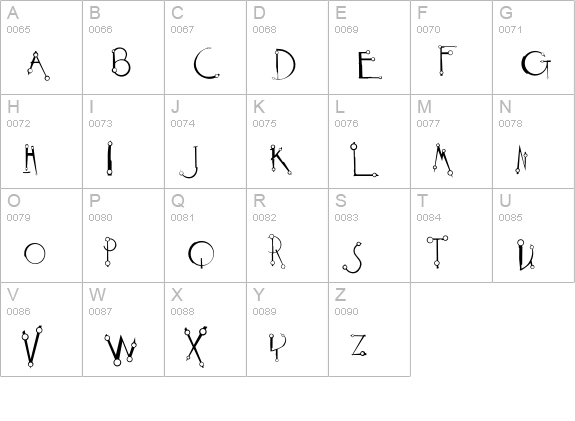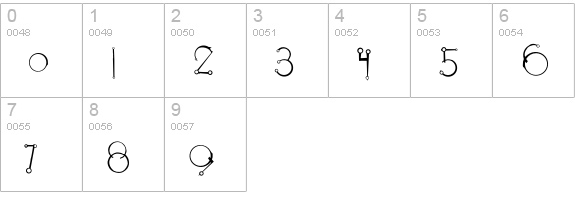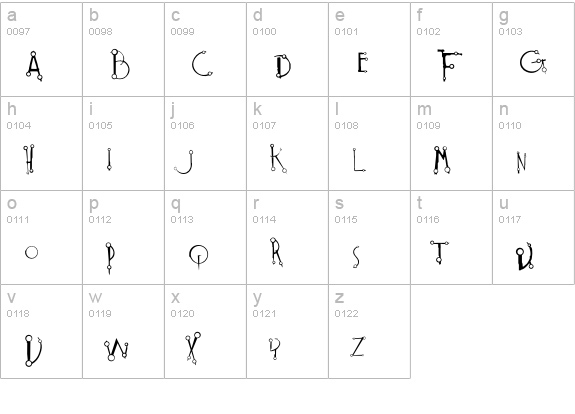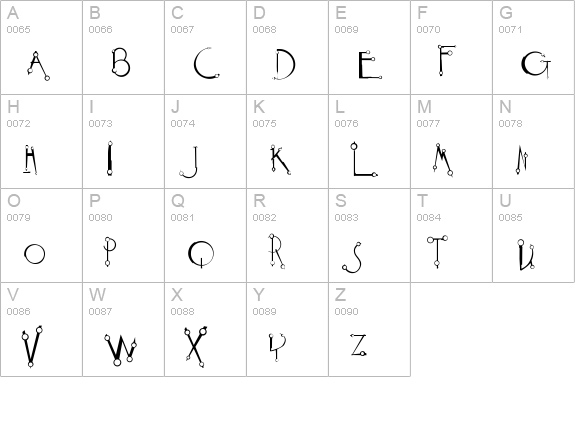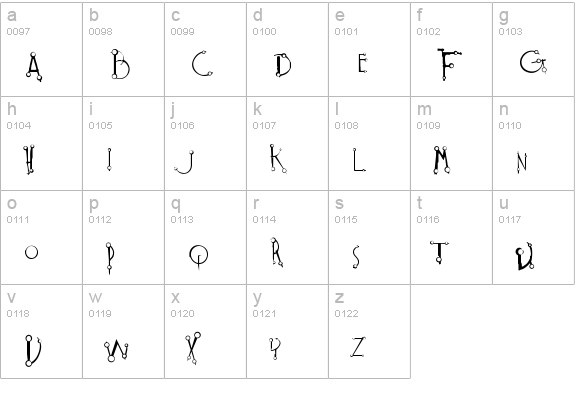
DecEpicure Font Details
DecEpicure font is a stunning and elegant typeface that exudes sophistication and charm. With its delicate serifs and graceful curves, this font is perfect for adding a touch of class to any design project. Whether you're creating wedding invitations, branding materials, or elegant signage, DecEpicure is sure to impress. What sets DecEpicure apart is not only its timeless appeal but also its versatility. This font can be used in a variety of settings, from formal to more casual designs, making it a valuable addition to any designer's toolkit. Best of all, DecEpicure is completely free to download at FontsMarket.com. This means you can add this beautiful font to your collection without breaking the bank. So why wait? Download DecEpicure today and elevate your designs with its sophisticated charm and elegance.